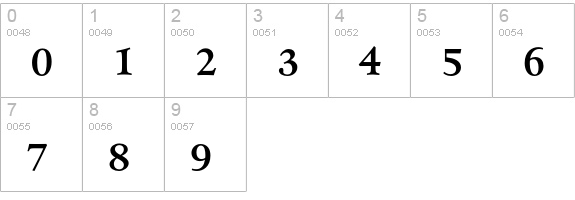
DTLVandenKeereD-Bold is a strong, high-contrast variant in the DTLVandenKeereD typeface family \xE2\x80\x94 well suited to headlines, attention-grabbing titles, and strong calls-to-action.
The DTLVandenKeereD-Bold font is a bold and striking typeface that commands attention with its strong presence and elegant design. This font is perfect for creating eye-catching headlines, titles, and branding materials that need to make a bold statement. With its clean lines and classic look, DTLVandenKeereD-Bold exudes a sense of sophistication and professionalism. What makes this font even more special is that it is available for free download at FontsMarket.com. You can easily access and use this high-quality font for your personal and commercial projects without any cost. Don't miss out on the opportunity to enhance your designs with the timeless appeal of DTLVandenKeereD-Bold. Download it today and elevate your typography game to the next level.